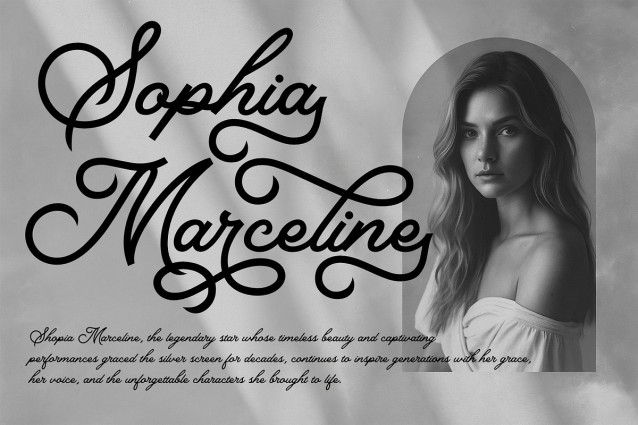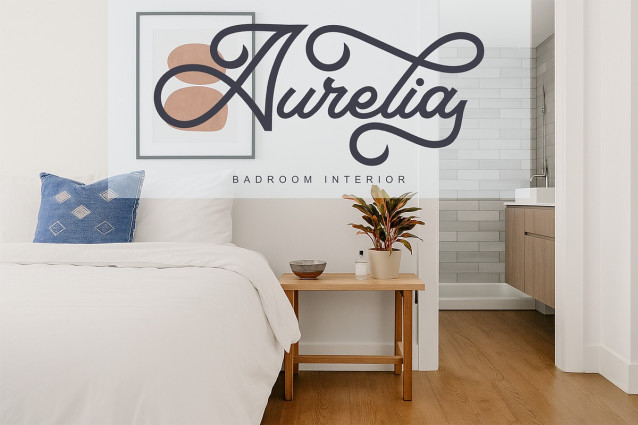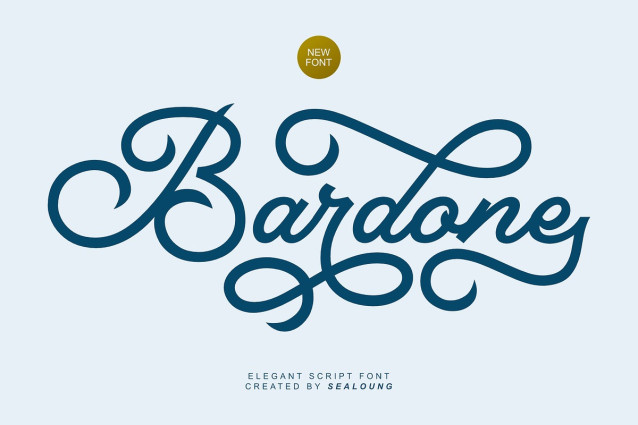
Bardone Script Font
Bardone Script Font is a modern casual script font with an elegant touch, perfect for a wide range of creative projects such as crafting, branding, logos, invitations, stationery, wedding designs, social media posts, advertisements, product packaging, product designs, labels, posters, photography, special events, and more.